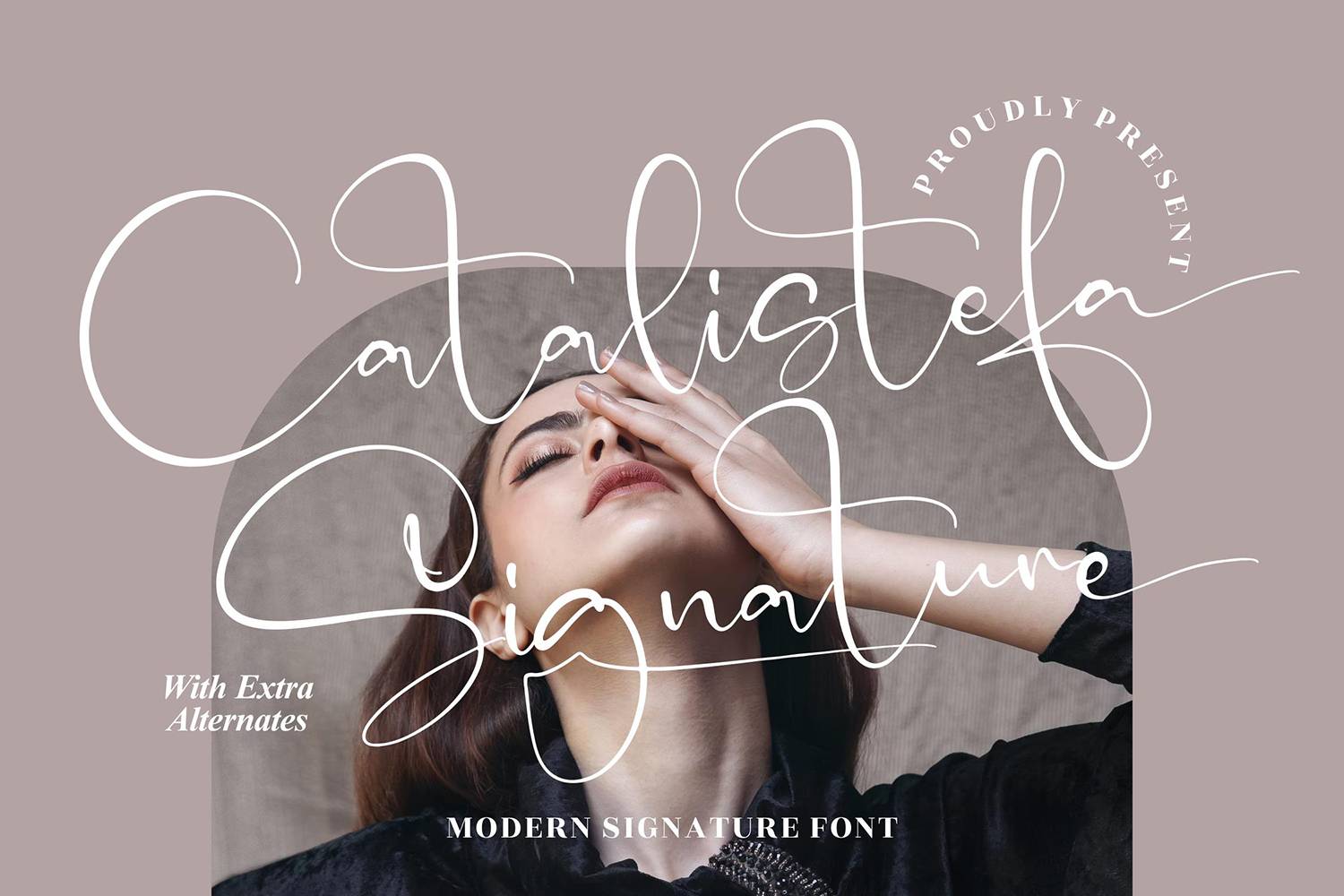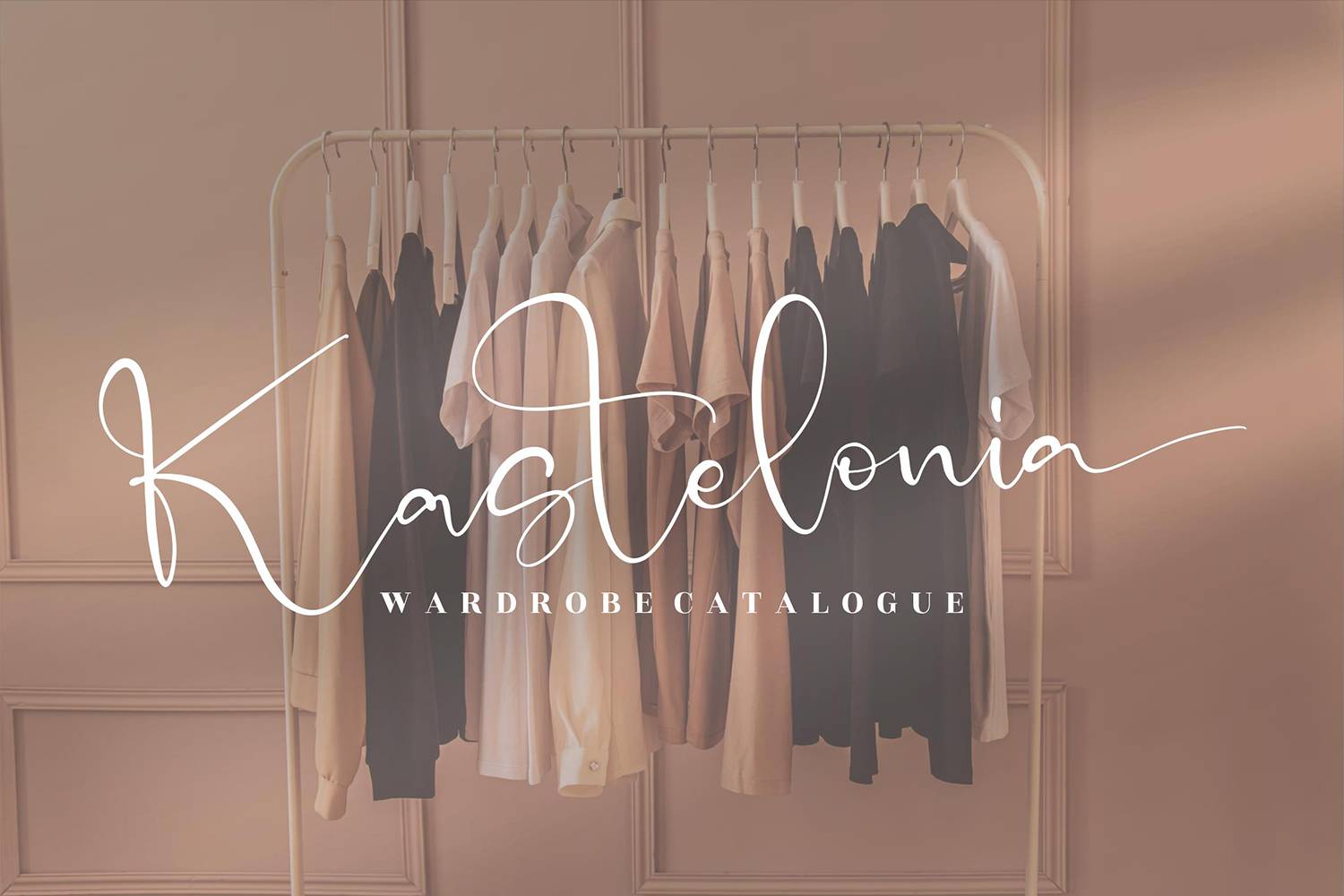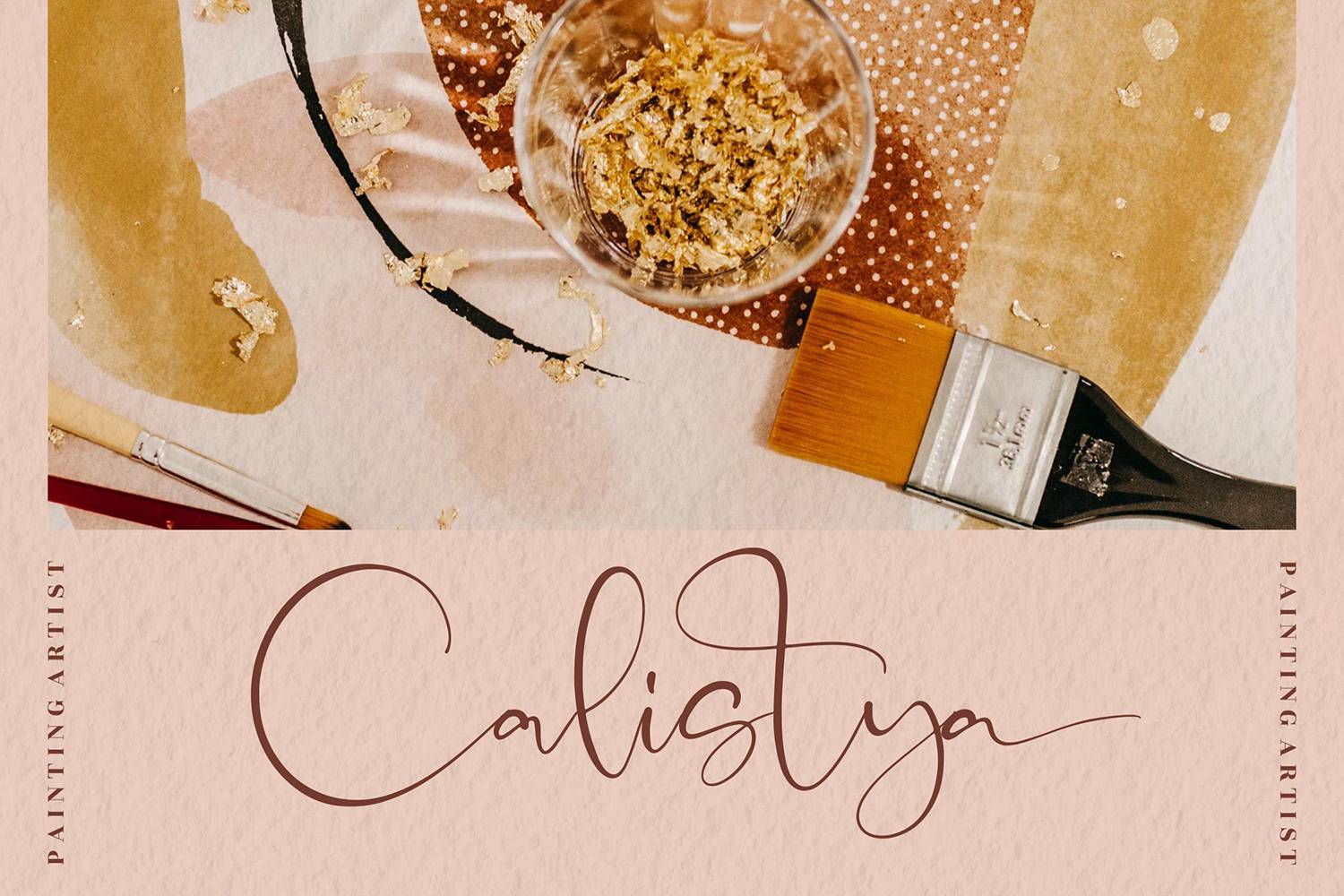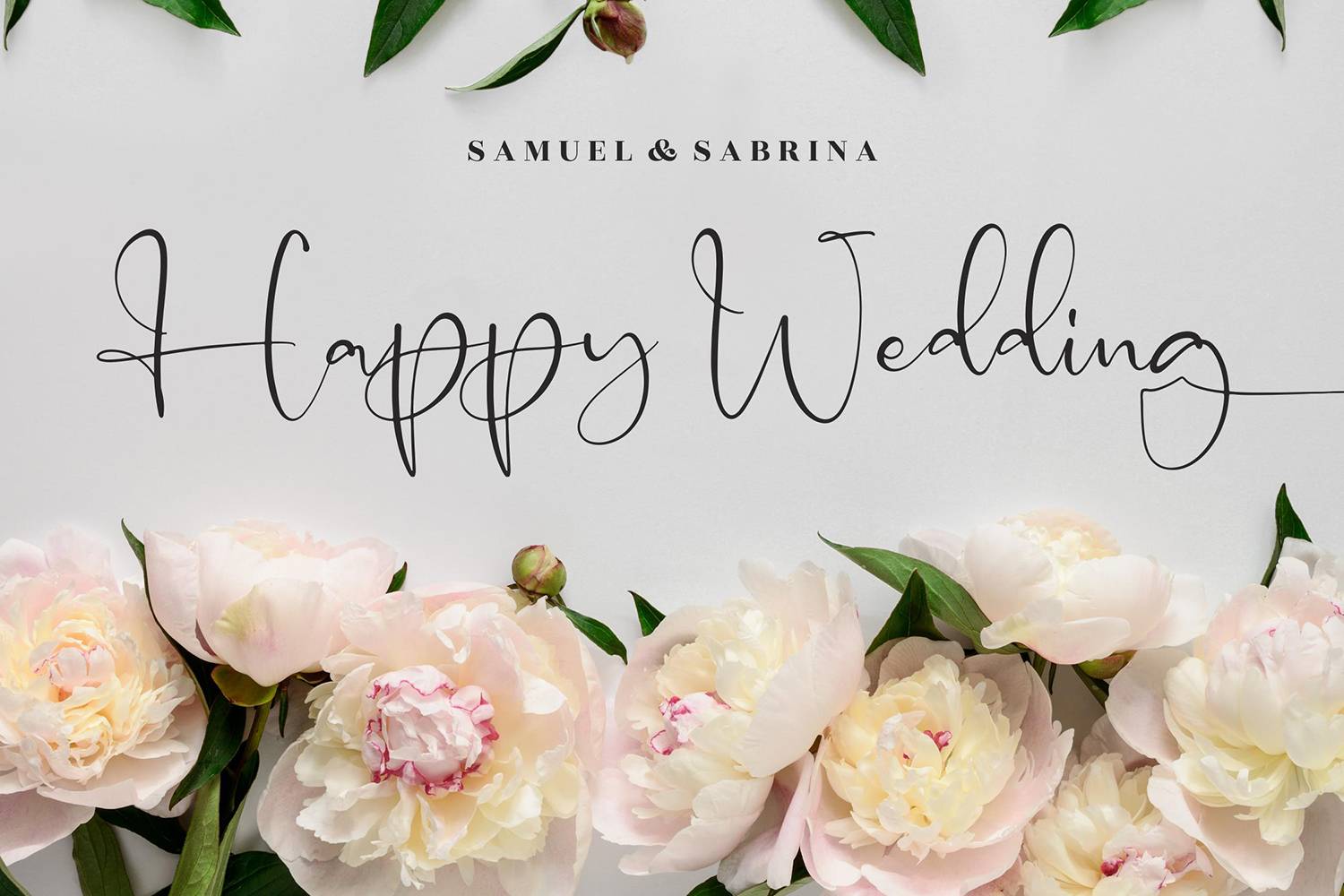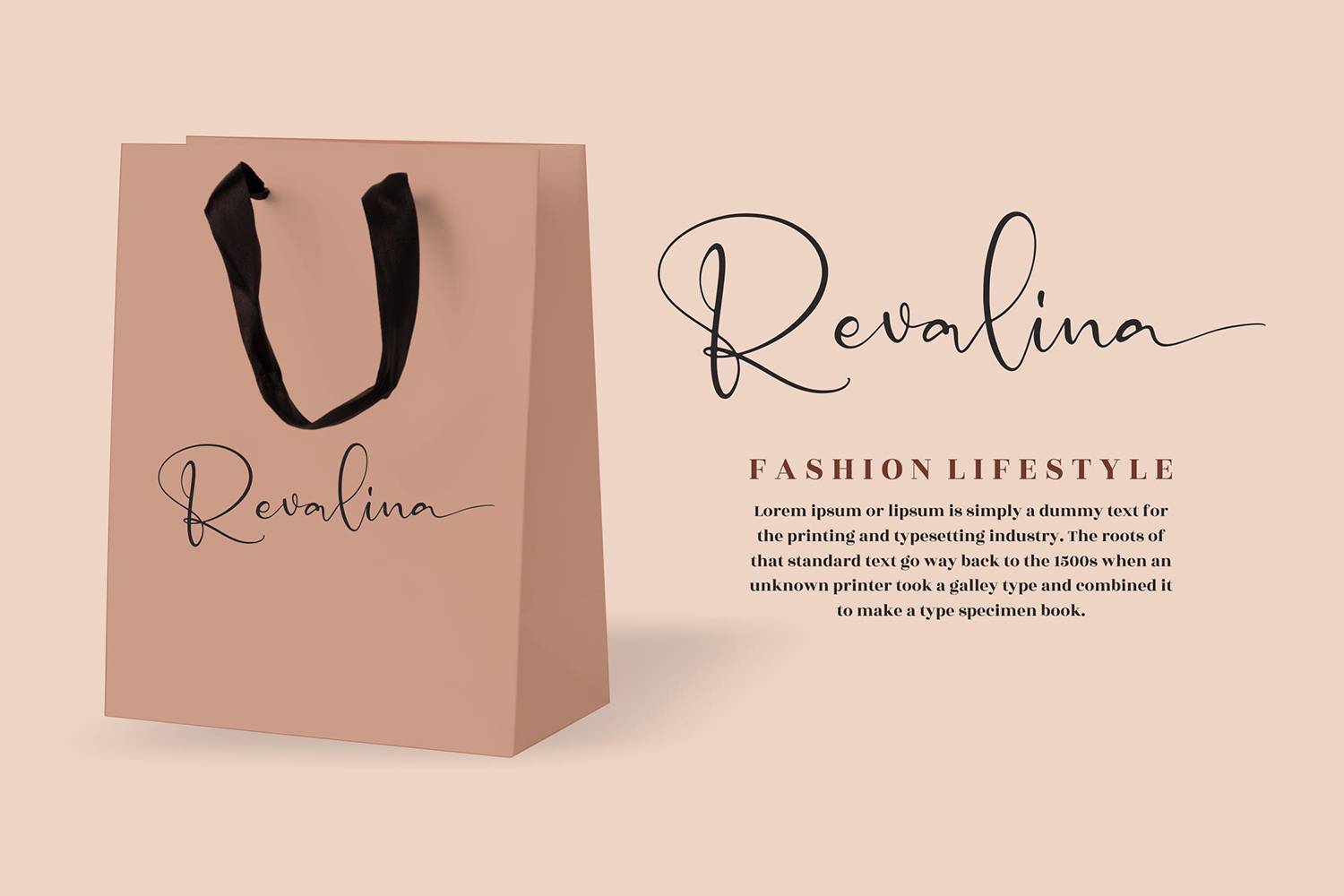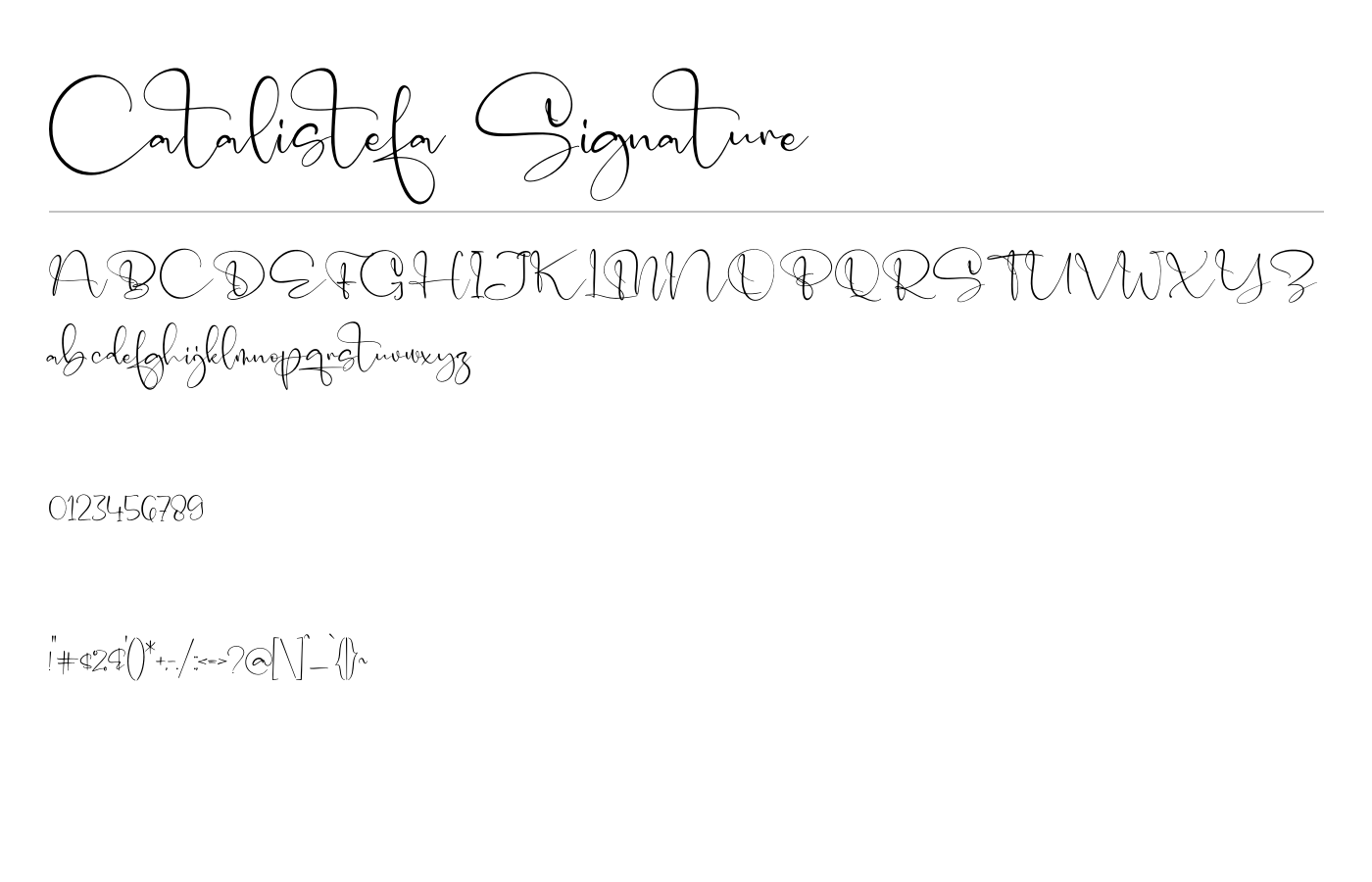
Catalistefa Signature is a delicate, elegant script font that mimics natural, flowing handwriting with its thin strokes and graceful loops. Its light weight and playful yet sophisticated style make it perfect for personal branding, invitations, and luxury packaging where a touch of refinement and personality is desired. This font shines in display uses such as logos and headlines, adding a unique, artistic flair to any design.
Catalistefa Signature Font